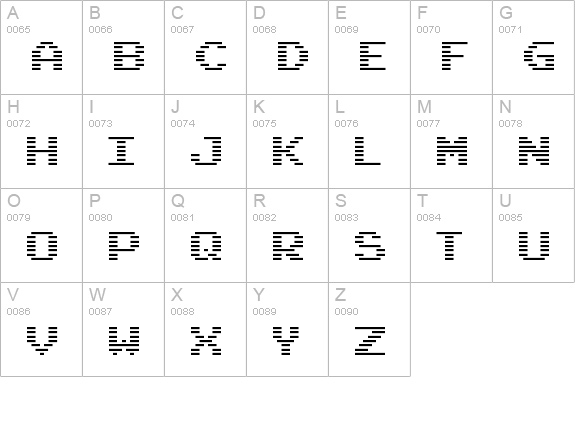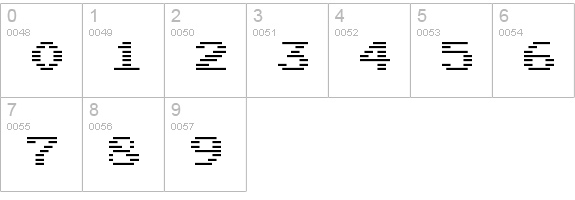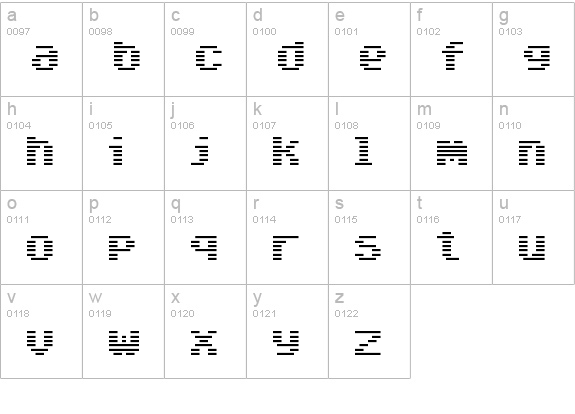
Arcade Classic font brings a nostalgic touch to your designs with its retro arcade game-inspired style. Featuring bold and blocky letterforms, this font is perfect for adding a fun and playful vibe to your projects. Whether you're creating posters, invitations, or branding materials, Arcade Classic font is sure to make a statement. The best part? Arcade Classic font is completely free to download at FontsMarket.com. Now you can easily access this unique typeface and enhance your designs without any cost. Don't miss out on the opportunity to elevate your projects with the charm of Arcade Classic font - download it today and let your creativity run wild!